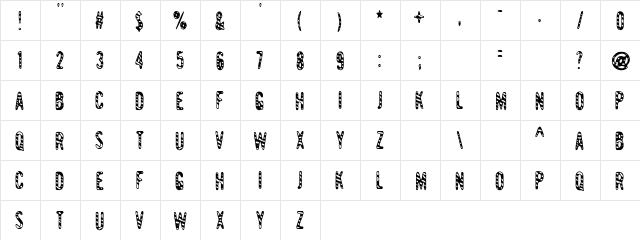
GiantTigers Regular
Design Context for GiantTigers Typeface
GiantTigers is a composed and adaptable typeface that performs quietly and consistently across a wide range of design contexts.